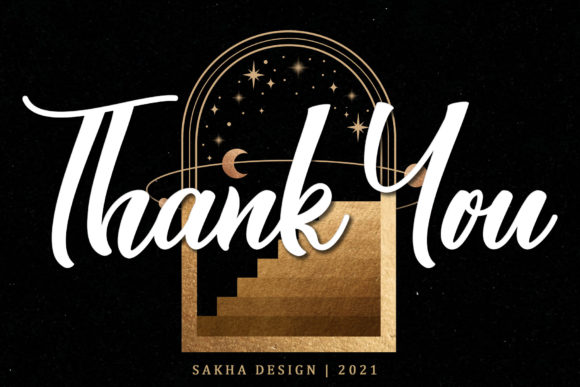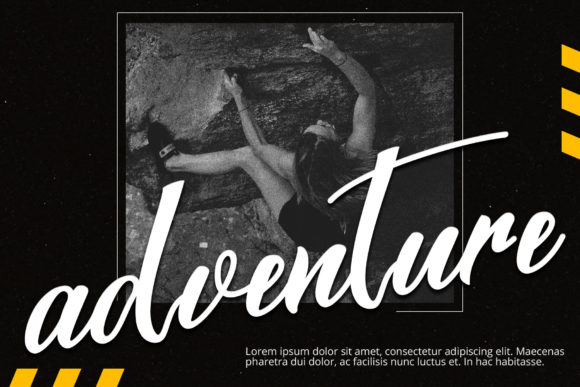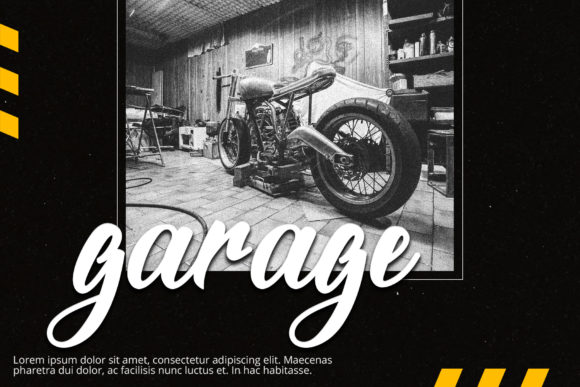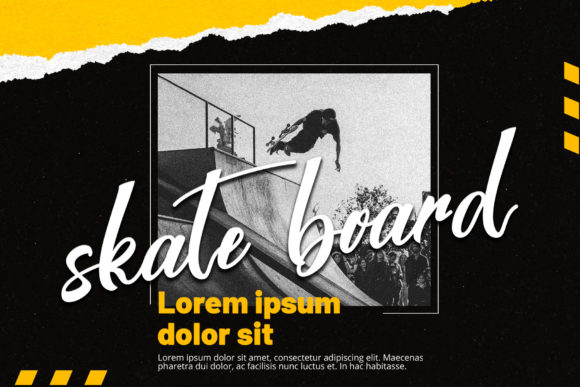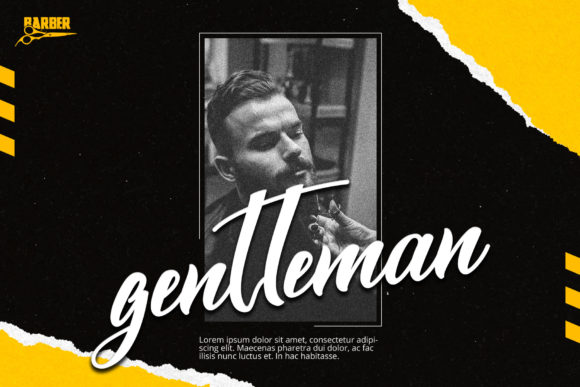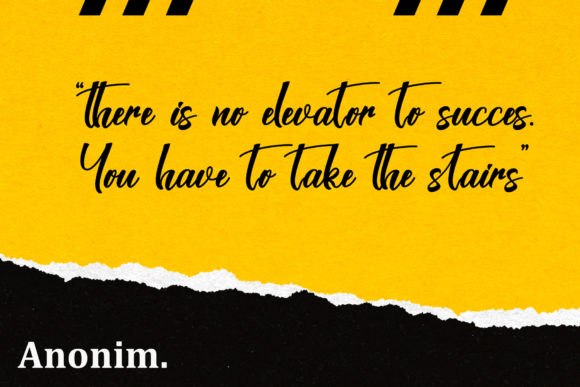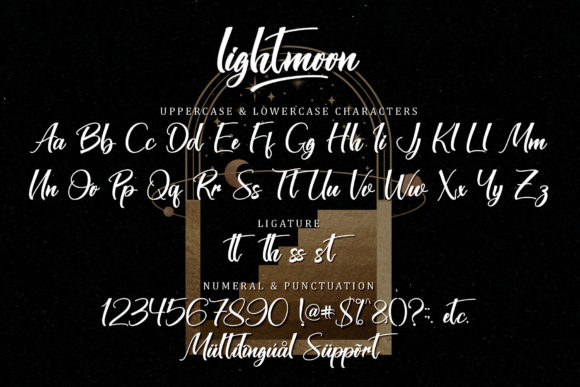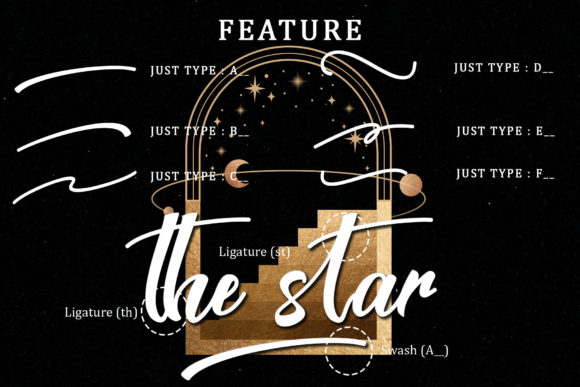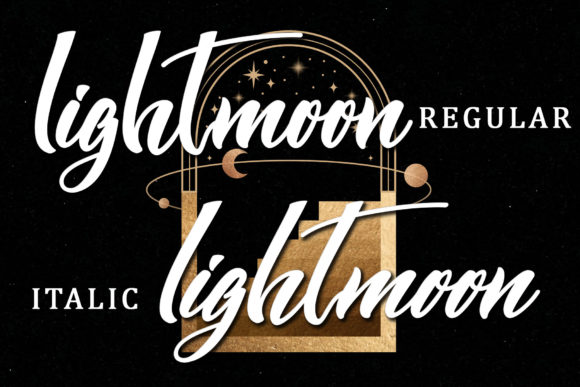
Introducing Lightmoon, an elegant and sleek script font that exudes sophistication and authenticity. With its refined letterforms and smooth curves, Lightmoon adds a touch of elegance and luxury to your projects, making them truly stand out.
Lightmoon is designed for projects that demand a high level of refinement and a timeless aesthetic. Its sleek and stylish appearance makes it perfect for exquisite designs, such as high-end branding, luxury packaging, elegant invitations, and editorial layouts. The clean lines and balanced proportions of Lightmoon create a sense of harmony and elegance, elevating your designs to a new level of sophistication.
Each letter of Lightmoon is meticulously crafted to ensure a flawless and graceful appearance. The flowing strokes and subtle variations in line thickness create a sense of movement and rhythm, adding a dynamic touch to your designs. The spacing and kerning are carefully adjusted to ensure optimal readability and visual harmony.
Whether you’re designing a logo for a luxury brand, creating elegant wedding invitations, or crafting editorial layouts for a high-end magazine, Lightmoon provides the perfect balance of elegance and legibility. Its versatility allows it to adapt to a wide range of design styles and applications, while maintaining its refined and sleek character.
Lightmoon is not just a font; it’s a tool for expressing sophistication and authenticity in your designs. Its timeless appeal makes it suitable for both classic and contemporary projects. From fashion and beauty to lifestyle and hospitality, Lightmoon adds a touch of refinement and elegance that captivates the viewer.
In addition to its aesthetic qualities, Lightmoon is also easy to work with. It comes with a full set of uppercase and lowercase letters, numerals, punctuation marks, and multilingual support, ensuring that you have everything you need to bring your creative vision to life. It is compatible with both print and digital applications, allowing you to use it seamlessly across different mediums.
Lightmoon is a font that commands attention and makes a lasting impression. Its sleek and elegant design sets the stage for a sophisticated and refined visual experience. Whether used as a headline font or as part of a larger design composition, Lightmoon adds a touch of class and authenticity that resonates with the audience.
So, if you’re looking to add an air of elegance and authenticity to your designs, Lightmoon is the perfect choice. Let its sleek and refined style elevate your projects and captivate your audience. Embrace the beauty and sophistication of Lightmoon and watch as your designs come alive with elegance and style.